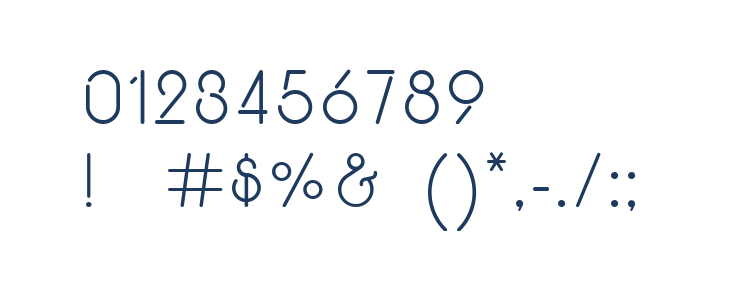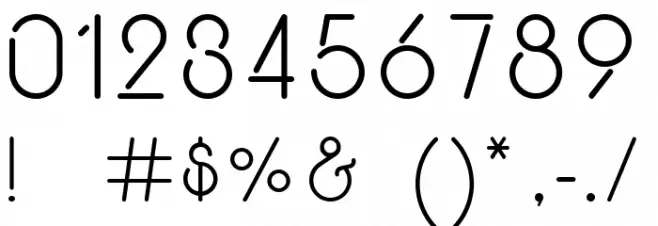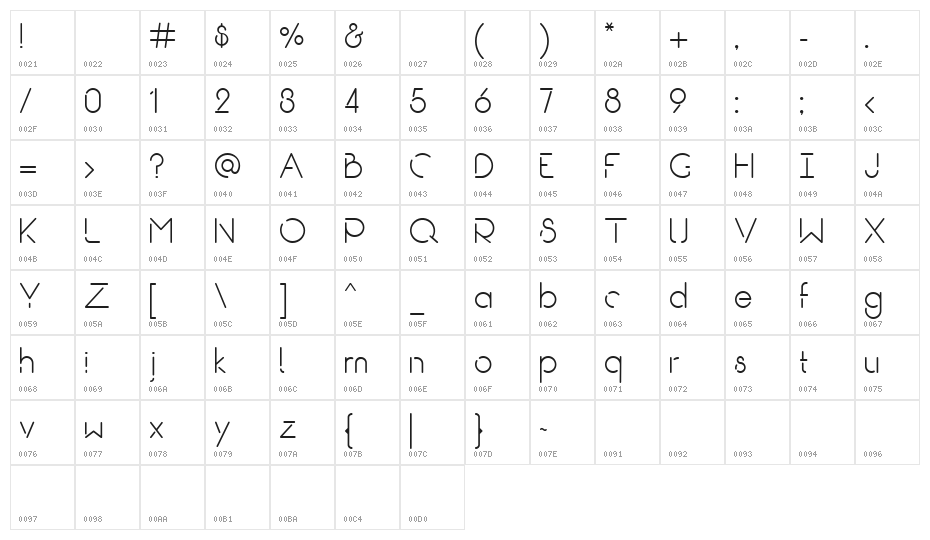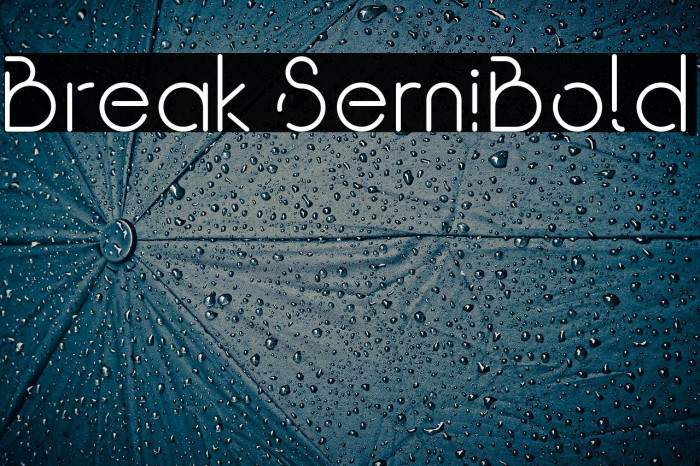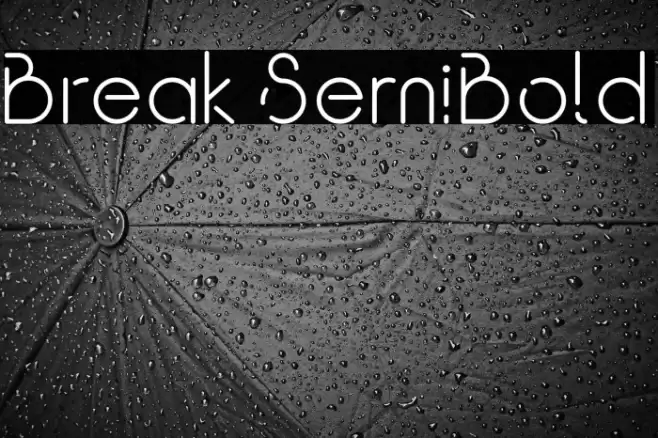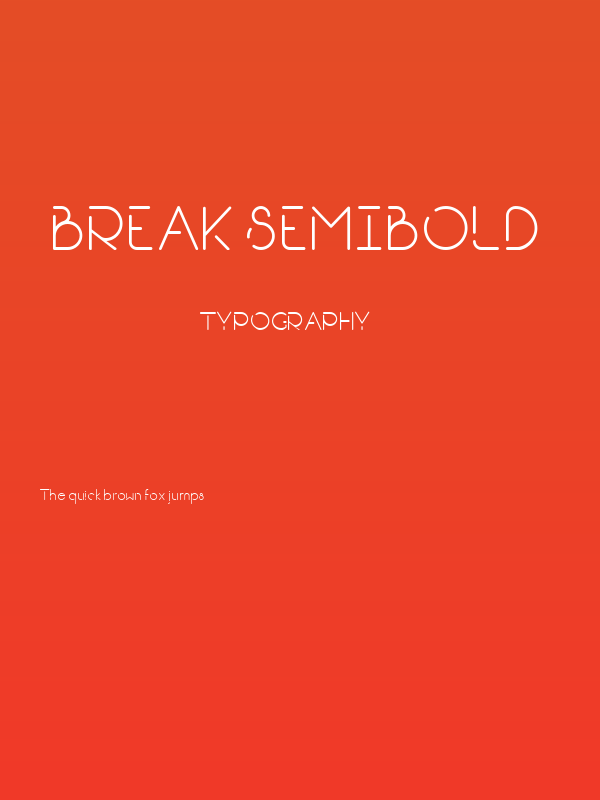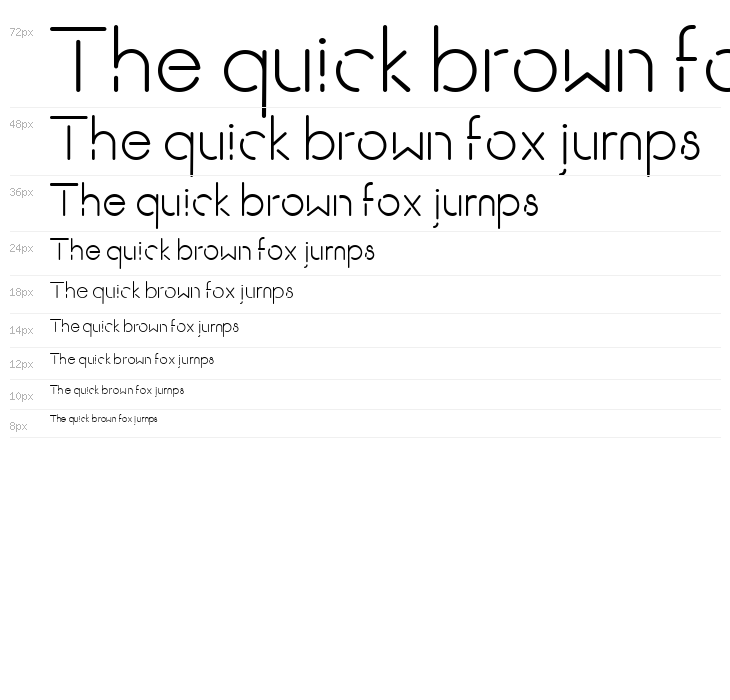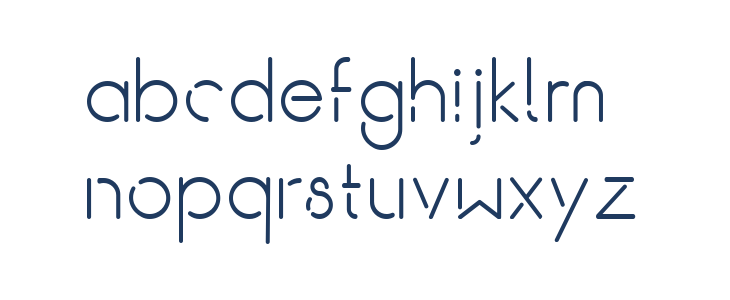
Break SemiBold Font
Break SemiBold Description
This font features a modern and geometric design with clean, rounded edges and a minimalist aesthetic. The uppercase letters are distinct with a unique blend of straight lines and curves, creating a futuristic feel. The lowercase letters maintain a consistent style, offering a harmonious balance between form and function. Numbers are clear and legible, with a similar geometric structure. Special characters are thoughtfully designed to match the overall style, ensuring versatility across various applications. The font's simplicity and elegance make it suitable for contemporary design projects.